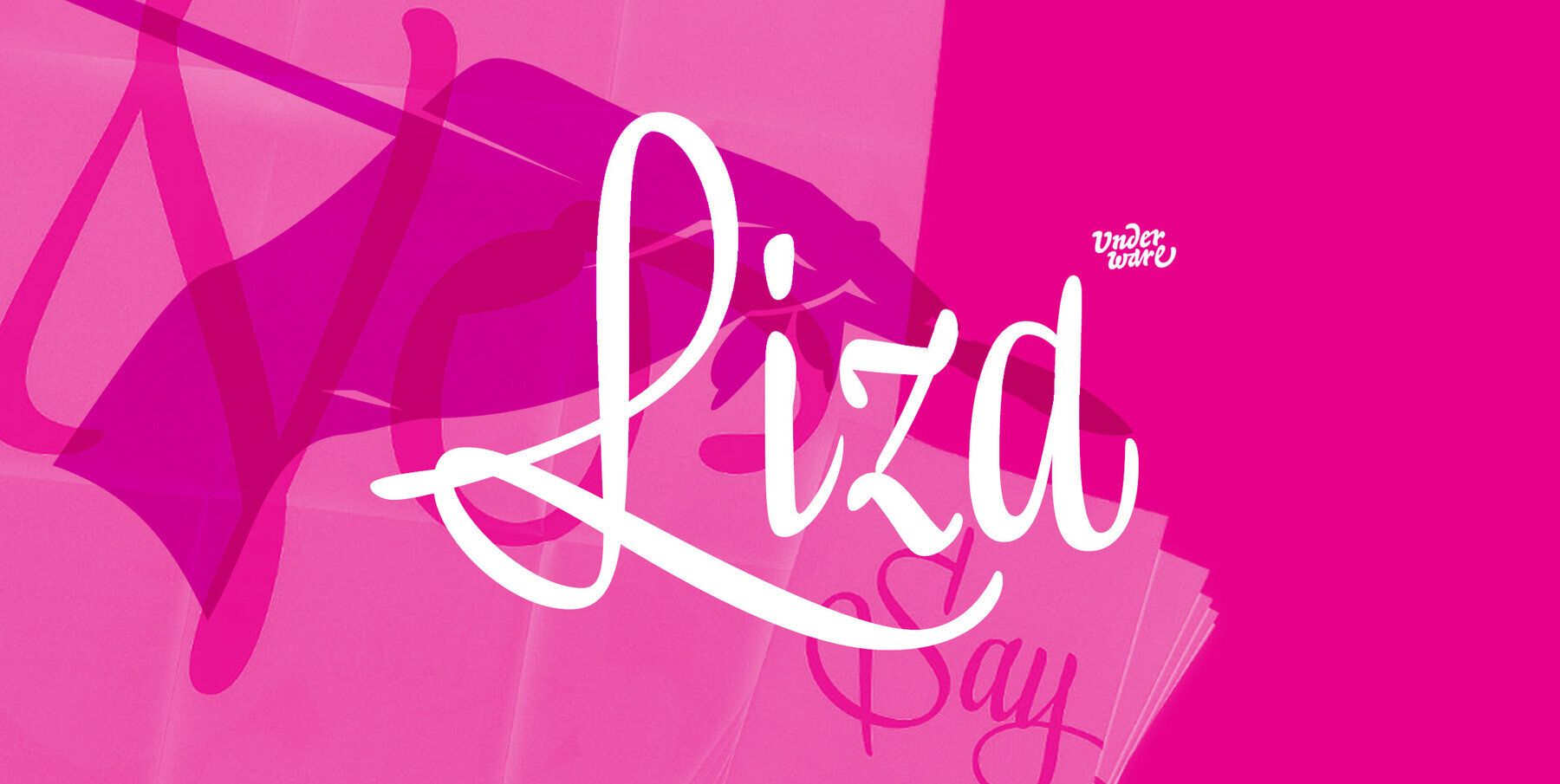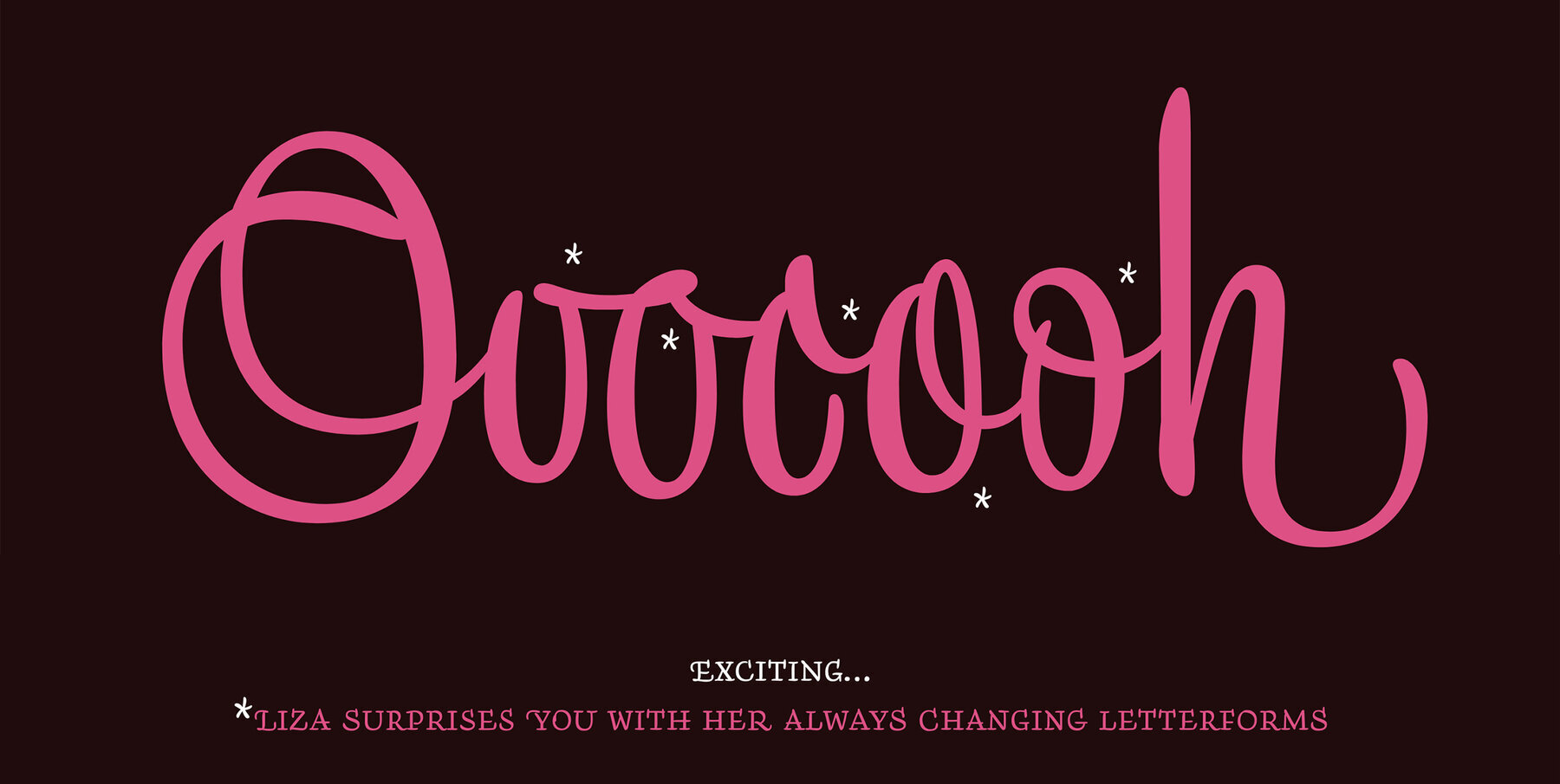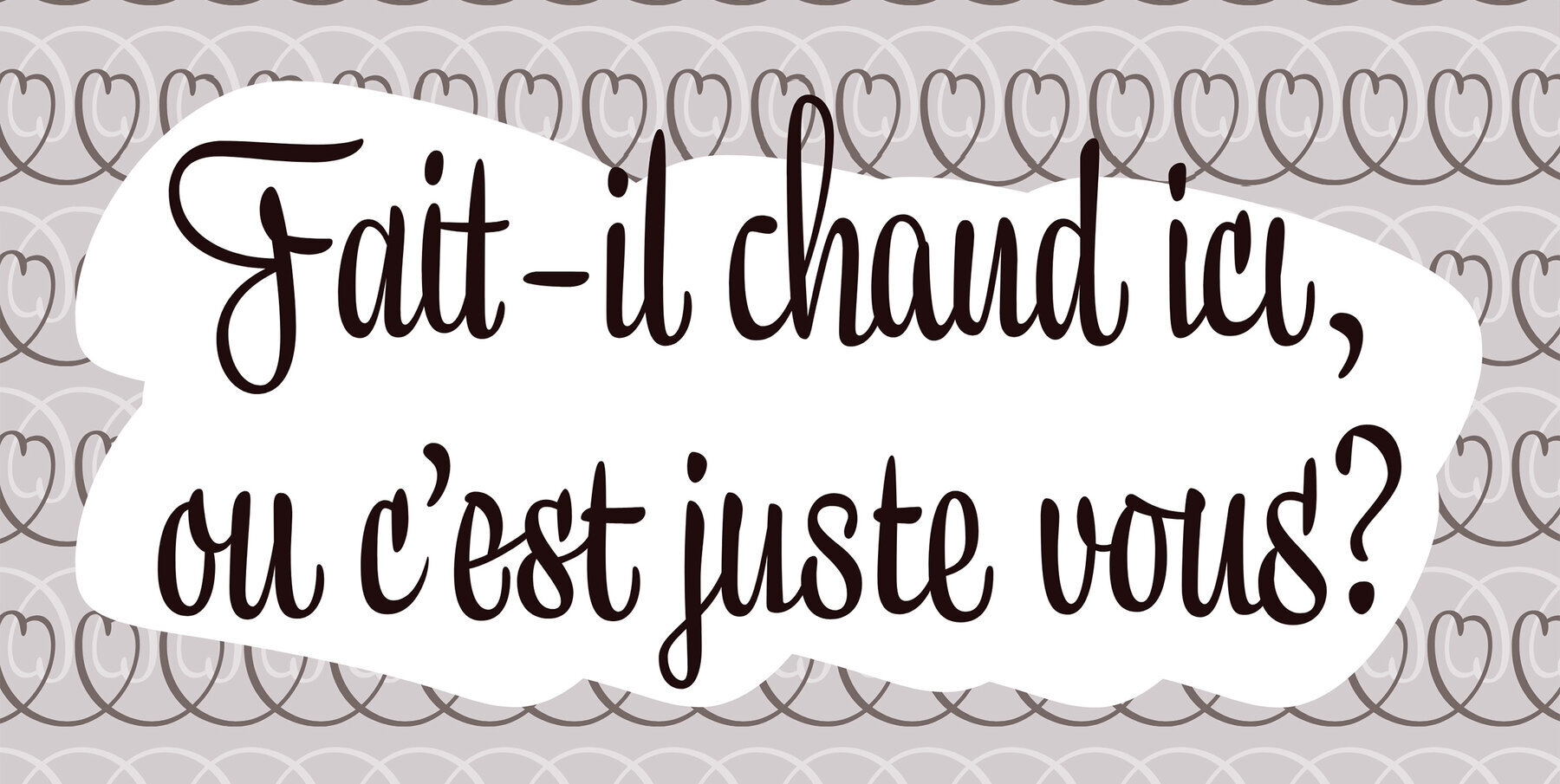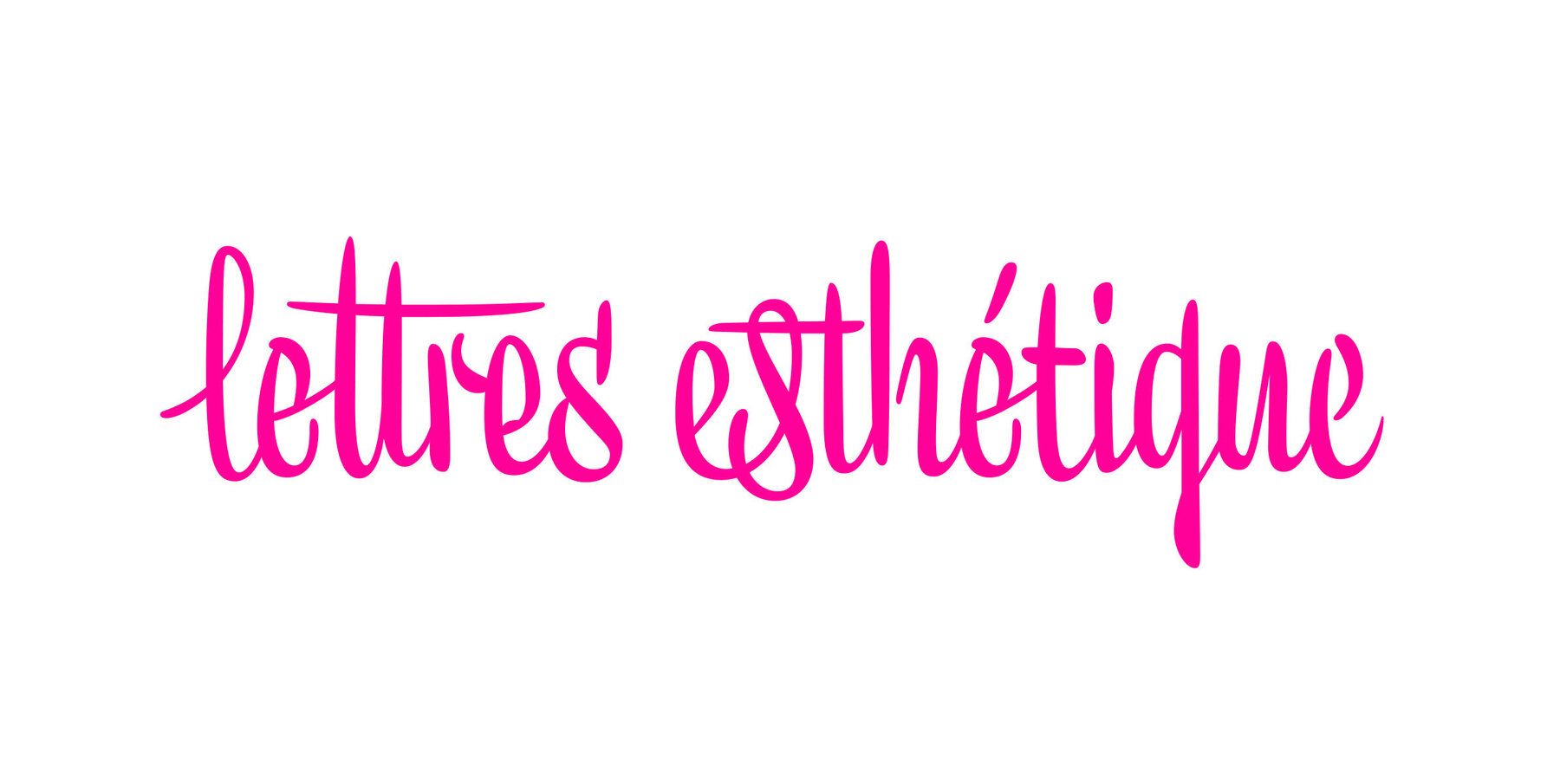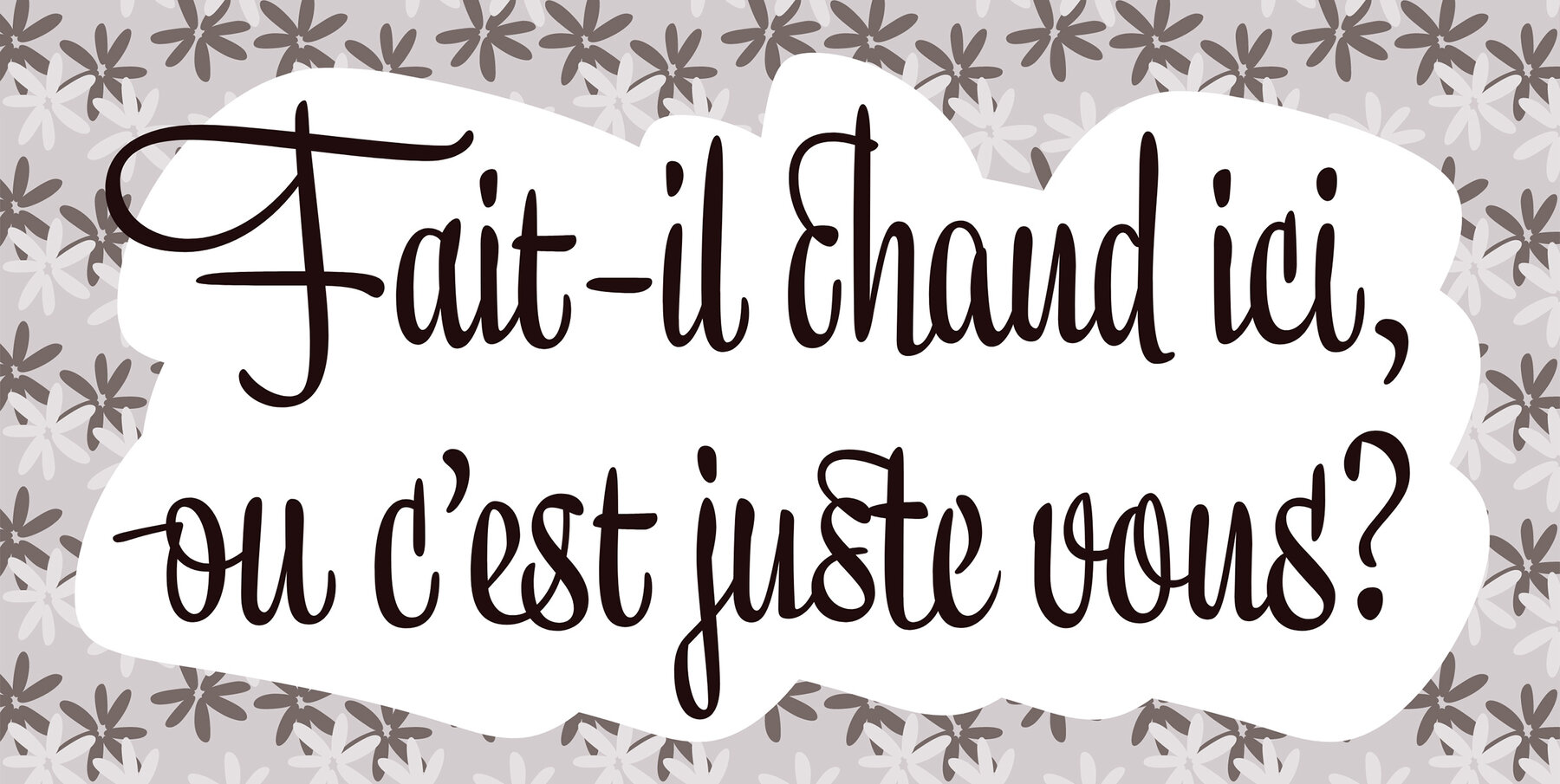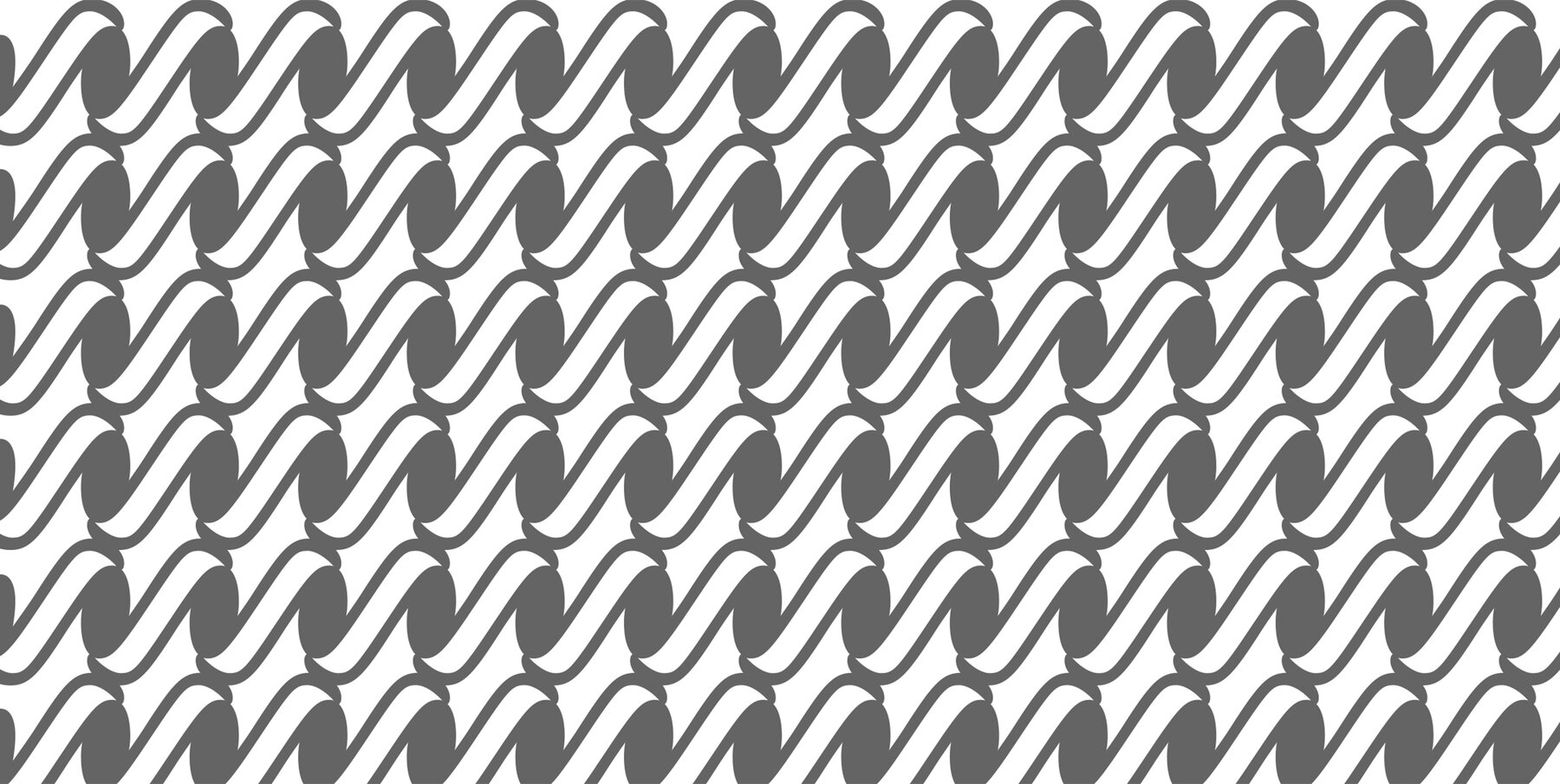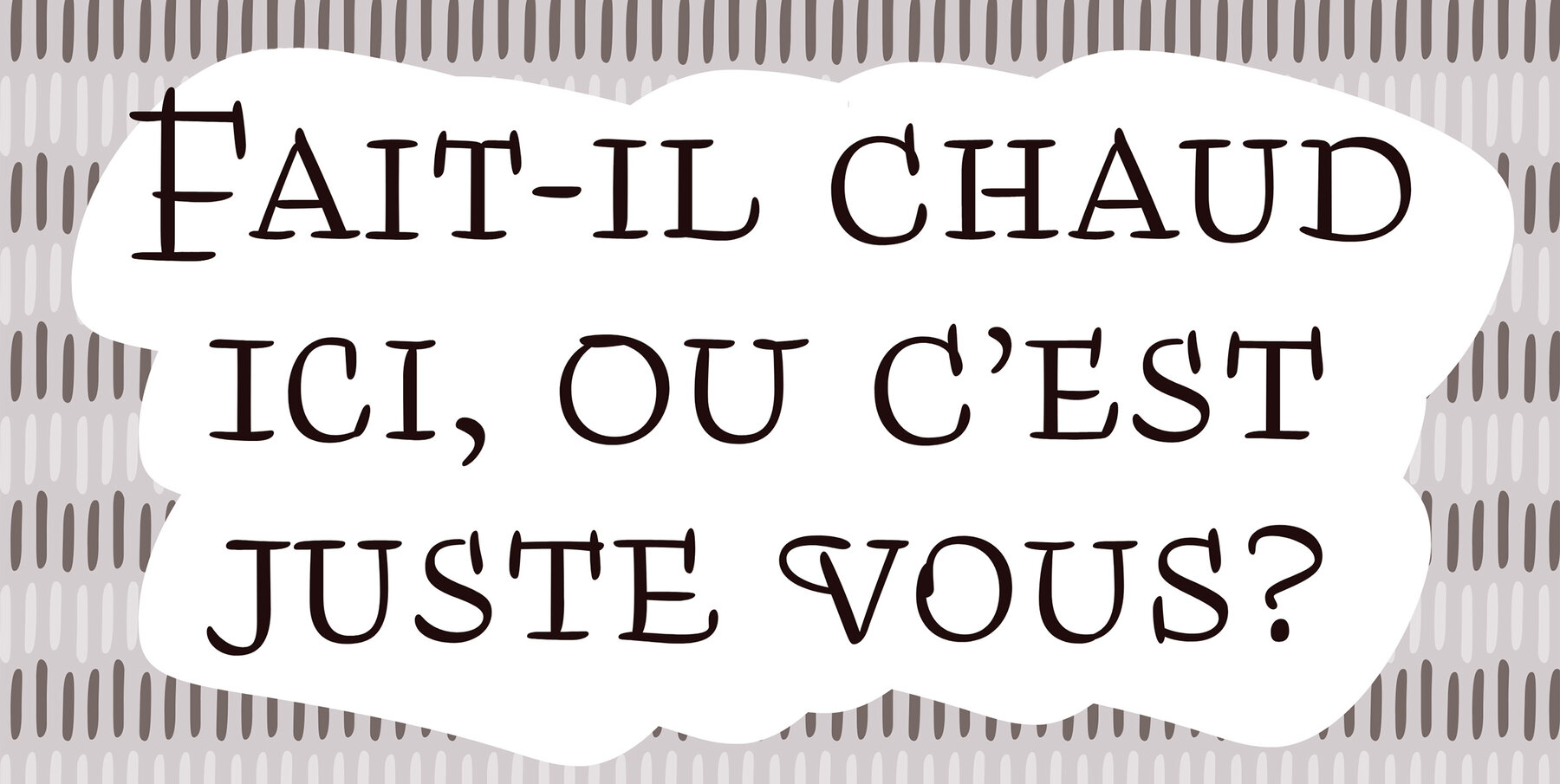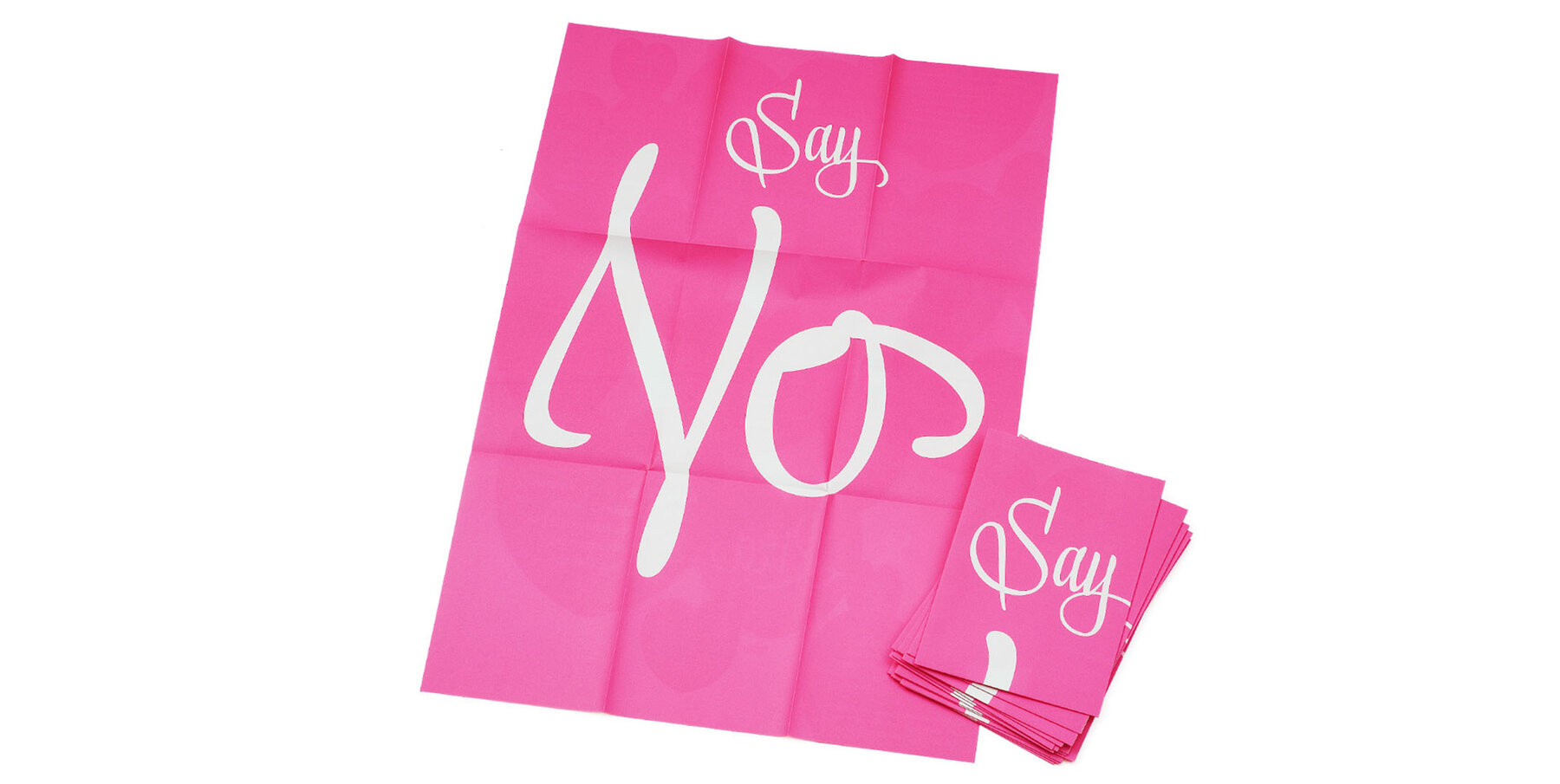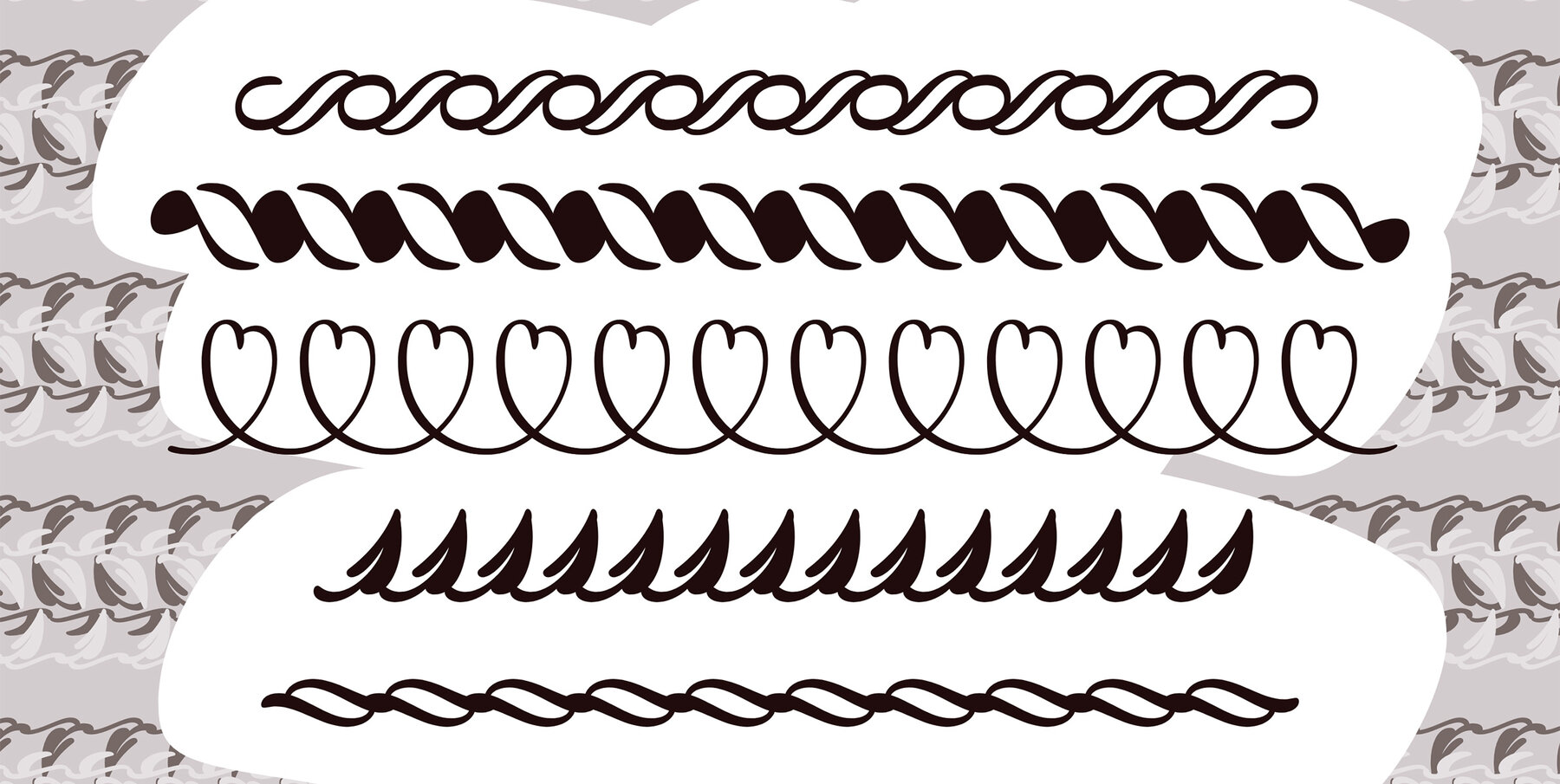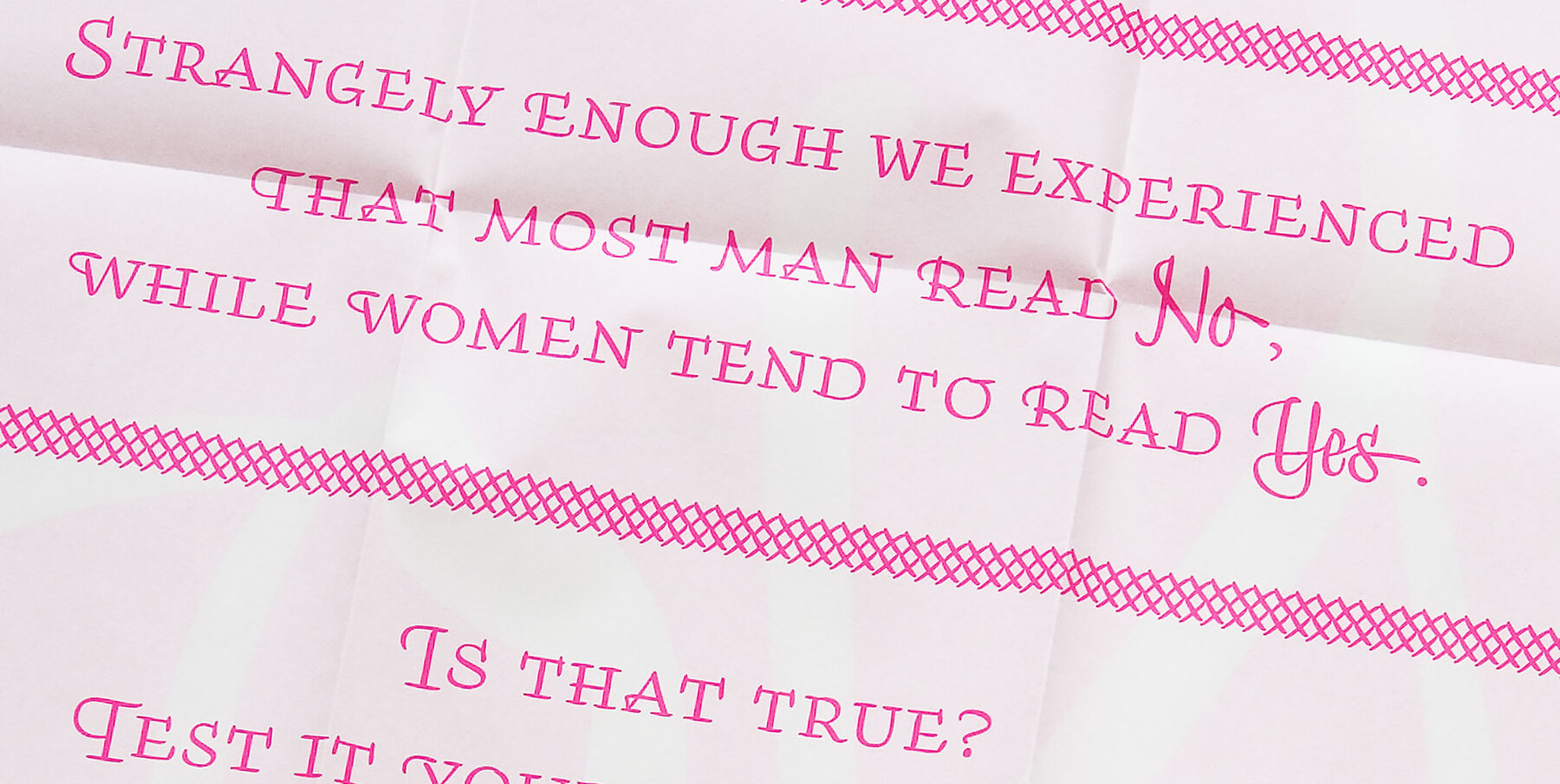
Liza Pro Font
Lettres d’amour! Flirting, fashionable, provocative, emotional, casual, moderate, extremely sensible & beautiful - Liza Pro covers it all. Liza Pro, Underware’s dear creation, is a live-script typeface. Thanks to its extremely intelligent OpenType architecture, she approaches human hand lettering as closely as technically possible. Liza Pro deeply analyzes the text. Out of a stock of 4000 hand crafted characters, Liza creates the most optimal combination. All of this works automatically. All you need to do is start typing your lettres d’amour, and Liza makes the text always look different. She gives your creative piece the impression par excellence. Liza is as clever as we could imagine. She kept all folks at Underware busy for a couple of years. It all started one rainy night back in May 2004 but quickly changed into a fatal affair exceptionnelle. 5 years later we were quite sure: this is something serious. Yes, we are talking about real love. L’amour pour la vie. Liza Pro has Underware’s world-dominating Latin Plus character set, supporting a total of 219 languages (Latin 1 + 2 and beyond). Liza Pro is a package of 4 fonts which work together. Liza Display Pro rocks the script lettering to the max. The build-in Out-of-ink feature, LetterSwapper and Protoshaper makes this font a realtime-digital-calligrapher. She’ll swash up your text drastically, giving long strokes, loops and swashes to letters if their context allows. Liza Text Pro has a more silent, moderate character - she’s well behaving sister of Liza Display Pro, designed to walk long pieces of text in a lively script style. Liza Caps Pro adds more possibilities and functionality to these two script fonts. It bridges the gap in case running script lettering doesn’t do the job, but it also works perfectly on its own. Every capital letter appears in various shapes to obtain the manual lettering feeling. Liza Ornaments Pro is for extra delicatesse et est plus charme. Four heart winning fonts, pour la langue l’amour!